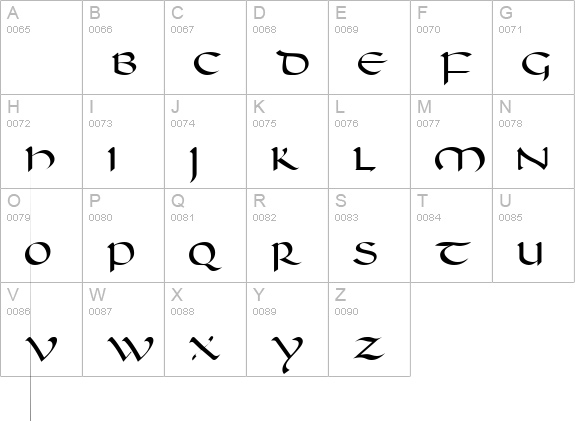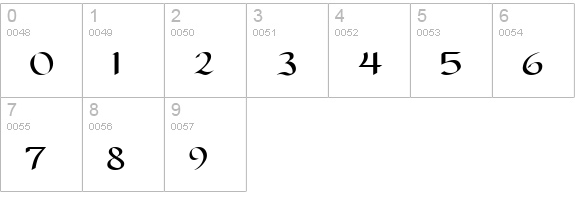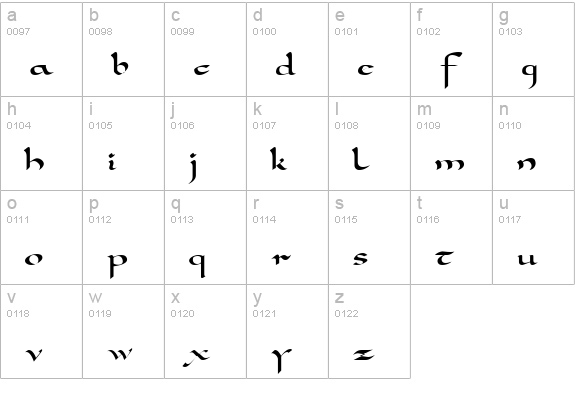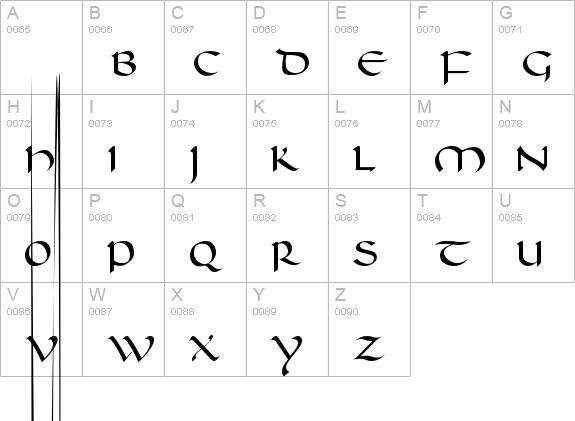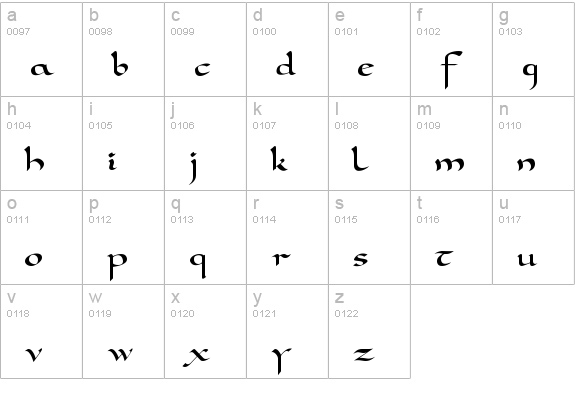
Samovar SSi Font Details
Introducing Samovar SSi, a striking and versatile font that effortlessly combines elegance and sophistication. This exquisite typeface is perfect for adding a touch of class to any project, whether it's a formal invitation, a beautiful logo, or a captivating book cover. Samovar SSi features a unique blend of timeless serif elements and modern design, creating a harmonious balance between tradition and innovation. Its clean and crisp letterforms exude a sense of refinement and professionalism, making it an ideal choice for both print and digital applications. One of the standout features of Samovar SSi is its remarkable readability. Each character is meticulously crafted to ensure maximum legibility, ensuring that your message will be effortlessly communicated to your audience. The well-defined letter shapes, generous spacing, and optimal kerning create an inviting and comfortable reading experience. But what sets Samovar SSi apart from other fonts is its accessibility. It is freely available to download at FontsMarket.com, making it a valuable asset for designers, creatives, and enthusiasts alike. Now, you can bring your visions to life without any financial limitations, as this font provides unrivaled quality without the burden of a price tag. Whether you're designing a professional presentation, crafting a memorable branding identity, or simply want to elevate your personal projects, Samovar SSi is the perfect choice. Its versatility, elegance, and availability make it a must-have font for anyone seeking to make a bold statement without sacrificing readability or style. Download Samovar SSi for free at FontsMarket.com and discover the endless possibilities that this remarkable font has to offer. Elevate your designs, captivate your audience, and leave a lasting impression with the exquisite beauty of Samovar SSi.